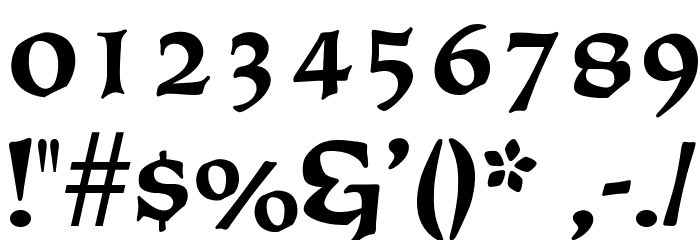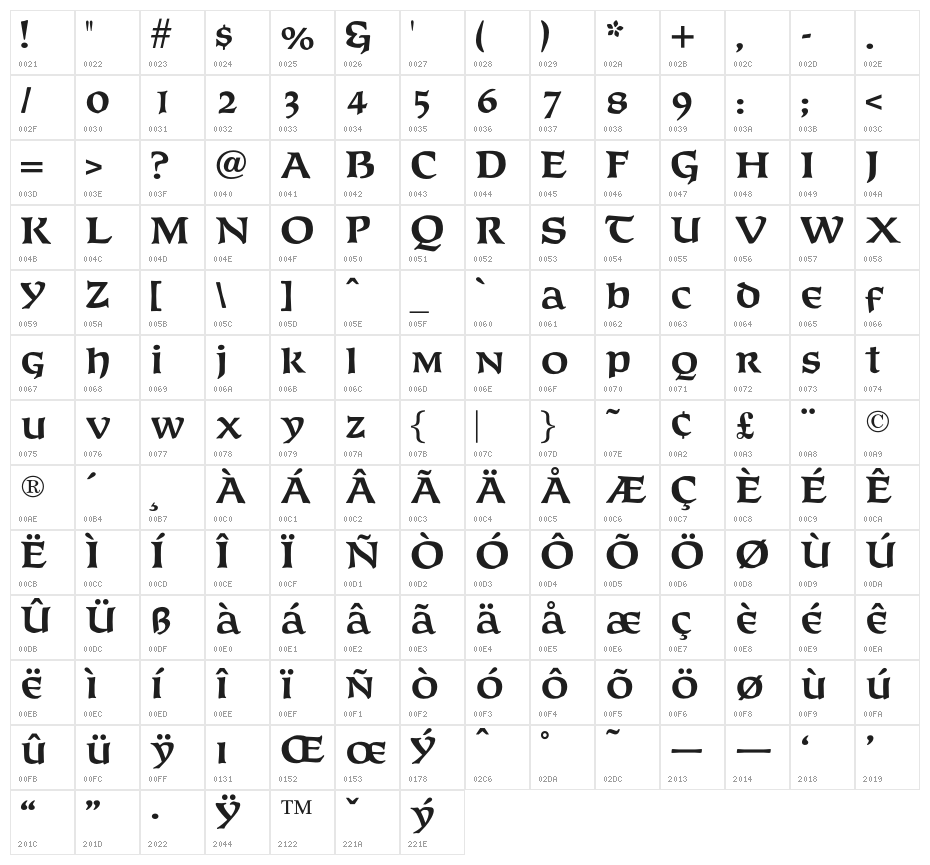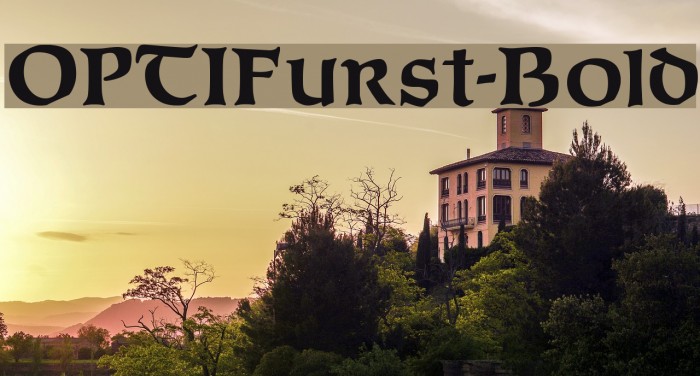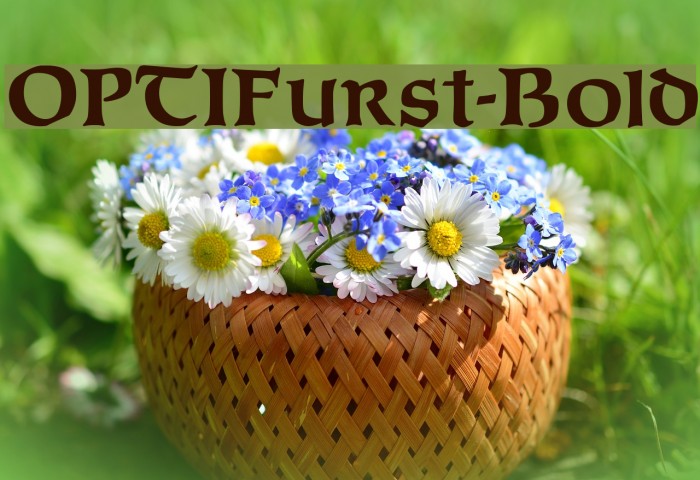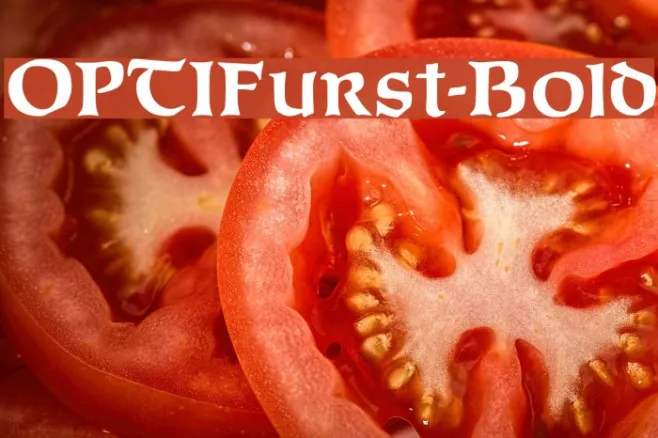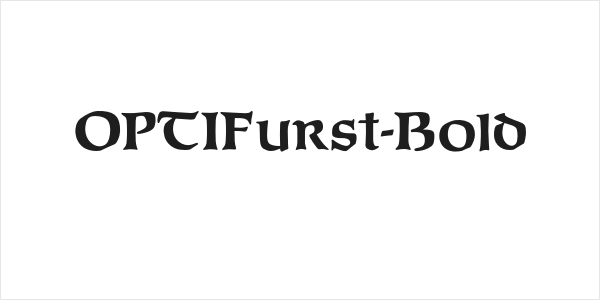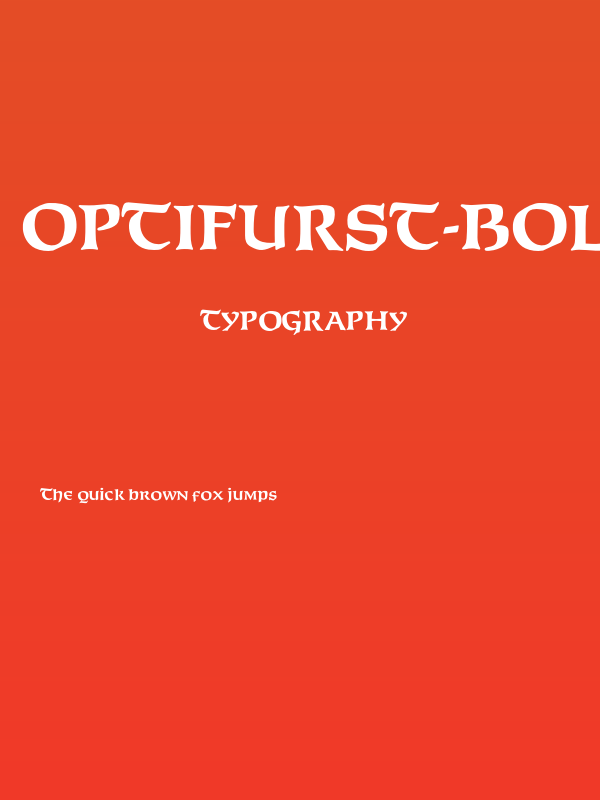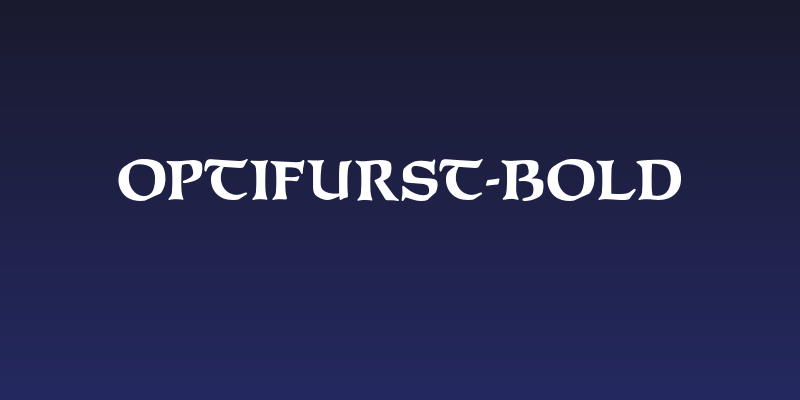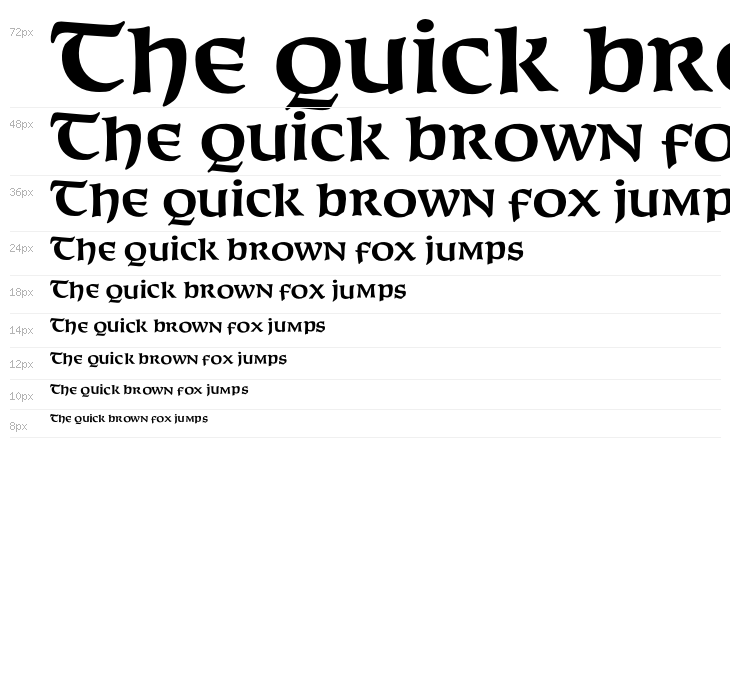
OPTIFurst-Bold Font
OPTIFurst-Bold Description
This font features a bold and striking design with a medieval flair, characterized by sharp, angular serifs and a slightly condensed structure. The uppercase letters exhibit a strong presence with pronounced strokes, while the lowercase letters maintain a consistent style with a touch of elegance. The numerals are distinct and maintain the same boldness, ensuring readability. Special characters are crafted with the same attention to detail, making them suitable for a variety of uses. The overall appearance is reminiscent of historical scripts, yet it maintains a modern touch, making it versatile for both traditional and contemporary projects.
| Use Case | Headlines, Logos, Decorative text |
| Proposed Projects | Ideal for projects requiring a historical or fantasy theme, such as book covers, posters, or themed event invitations. |